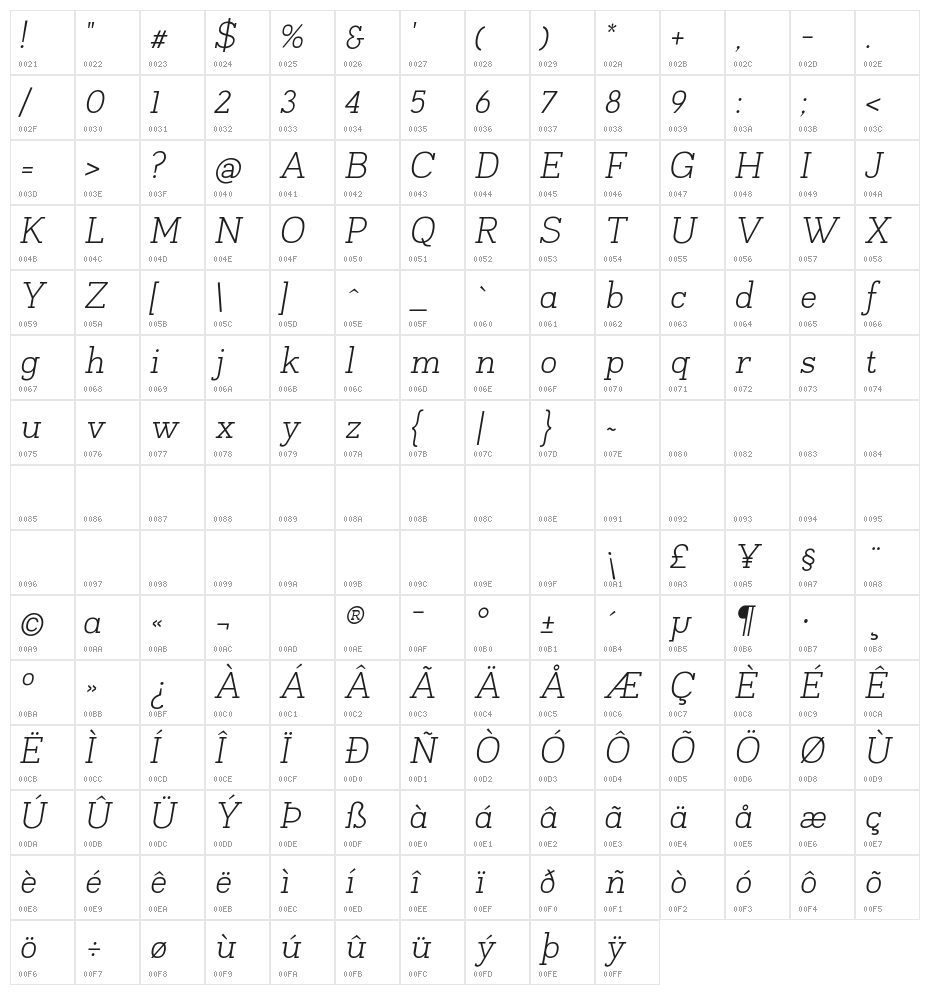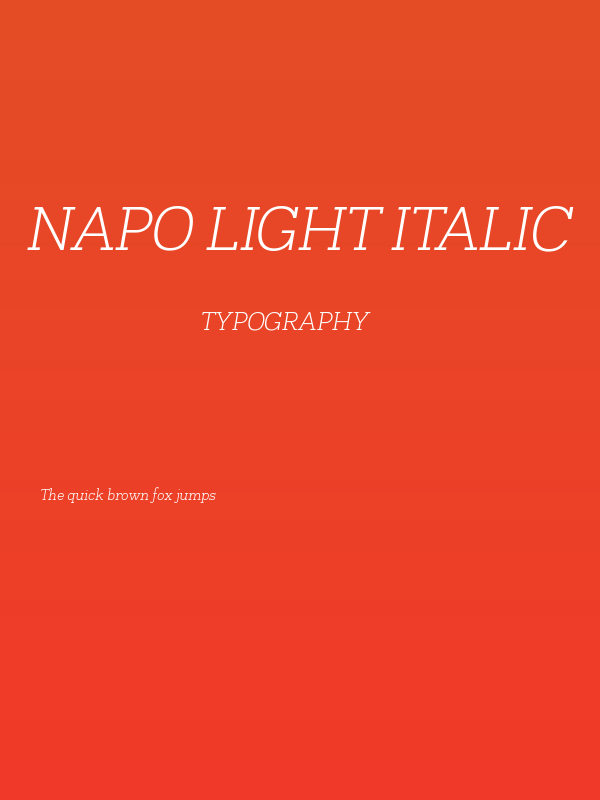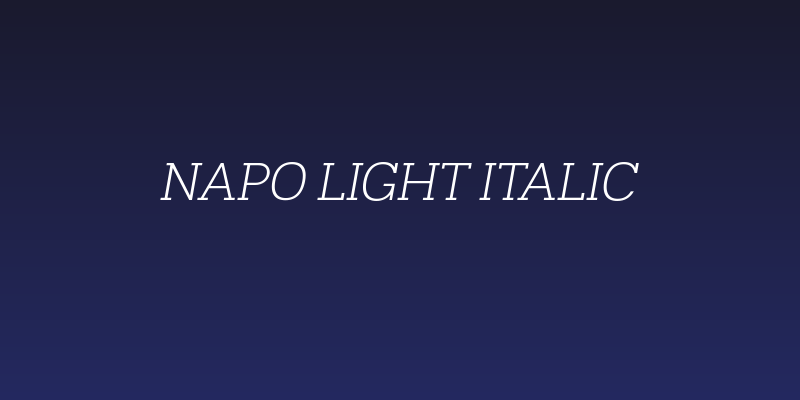
Napo Light Italic Font
Napo Light Italic Description
This font features a light and elegant design with a subtle italic slant, giving it a sophisticated and refined appearance. The characters are well-proportioned with a slight forward tilt, enhancing readability while maintaining a stylish look. The strokes are consistent and smooth, with a medium contrast between thick and thin lines, adding to its graceful aesthetic. The font includes a full set of uppercase and lowercase letters, numerals, and a variety of special characters, making it versatile for various design needs. Its clean lines and understated elegance make it suitable for both digital and print media.
| Proposed Projects | Ideal for projects such as wedding invitations, elegant branding, fashion magazines, and upscale product packaging. |